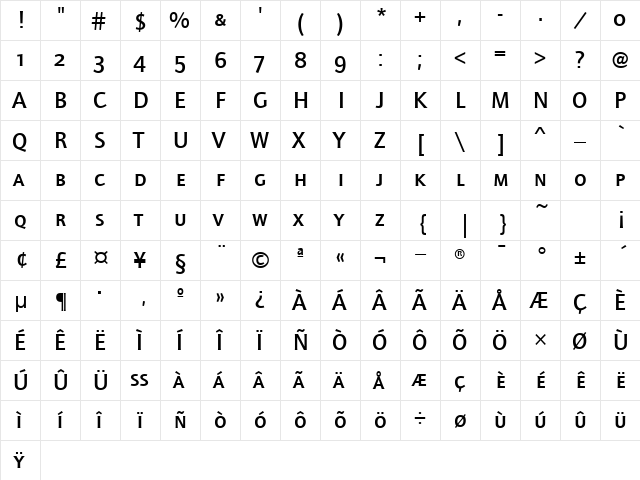
QuaySansMdSCITCTT Regular Font Preview
QuaySansMdSCITCTT Regular
QuaySansMdSCITCTT Regular Font Details
| Foundry | International Typeface Corporation |
| Designer | David Quay |
Design Context for QuaySansMdSCITCTT Typeface
QuaySansMdSCITCTT offers clean, dependable letterforms without strong stylistic allegiance, making it a practical choice for designers who need flexibility.